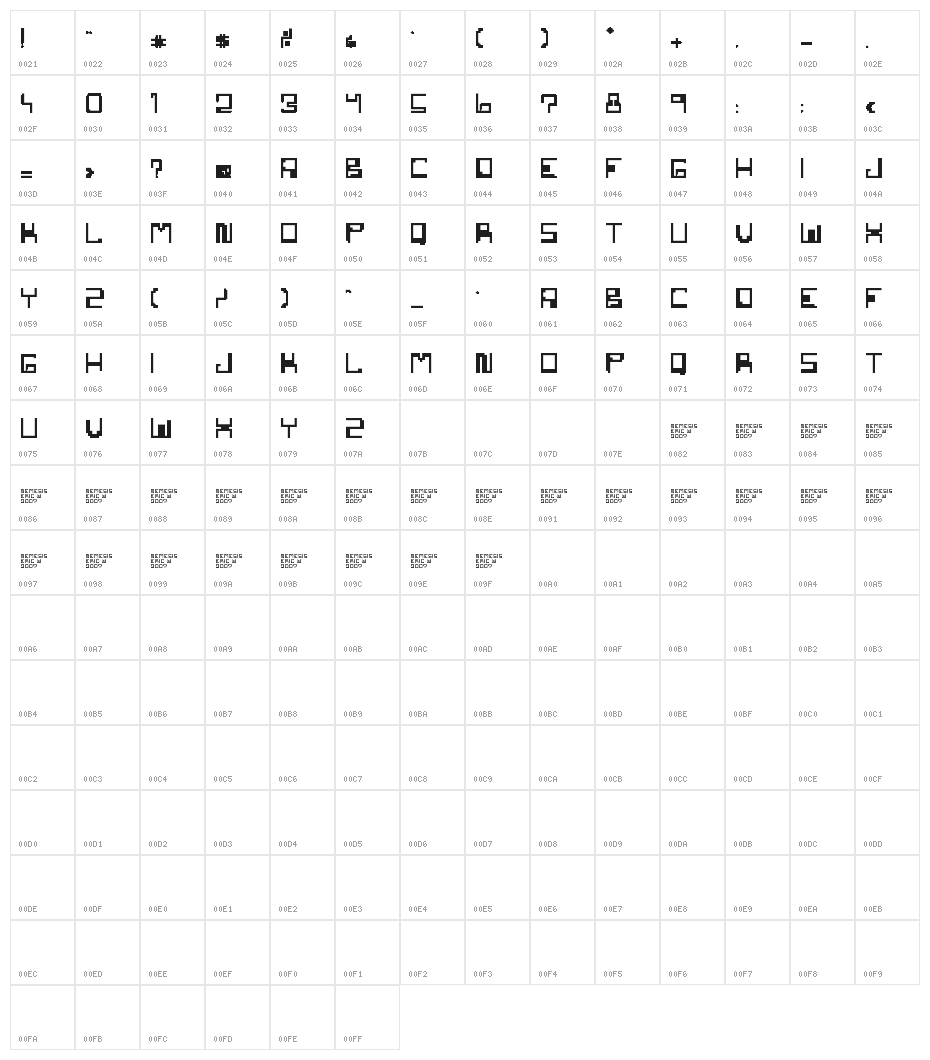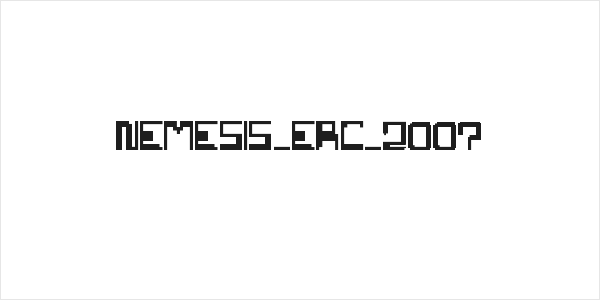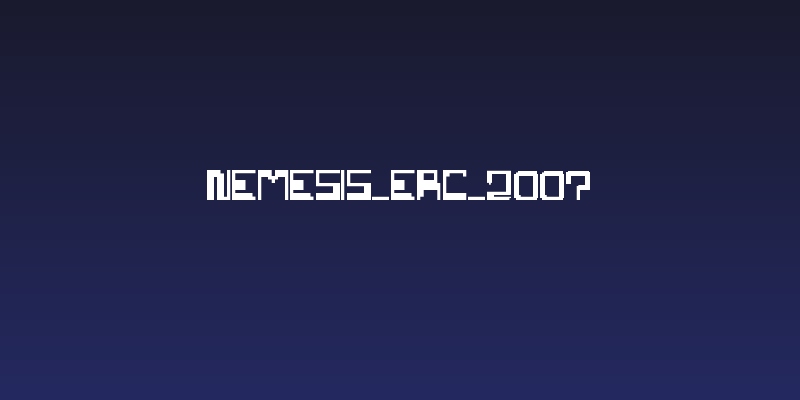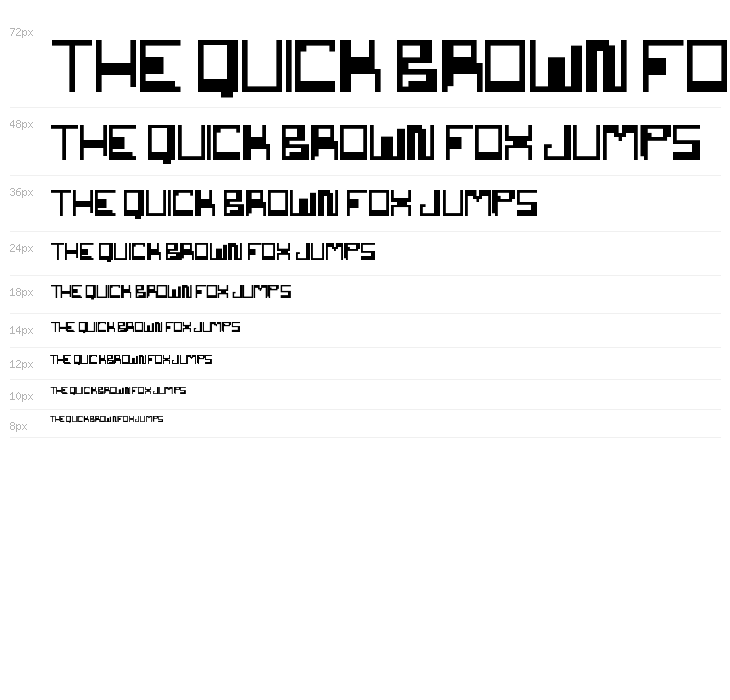
nemesis_erc_2007 Font
nemesis_erc_2007 Description
This font features a bold, geometric design with a distinctly digital aesthetic. The characters are constructed with sharp, angular lines and a blocky structure, reminiscent of early computer graphics or pixel art. Each letter maintains a consistent height and width, contributing to a uniform appearance across the typeface. The uppercase and lowercase letters share similar design traits, with the lowercase being slightly more compact. Numbers and special characters follow the same stylistic approach, ensuring cohesion throughout. This font's unique style makes it stand out, offering a modern yet retro feel.
| Proposed Projects | Ideal for video game design, tech-themed posters, digital art projects, and retro-inspired branding. |